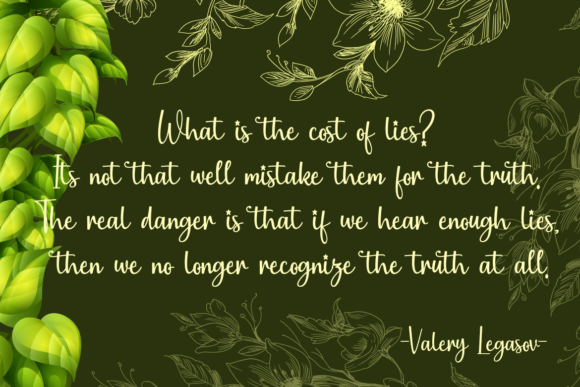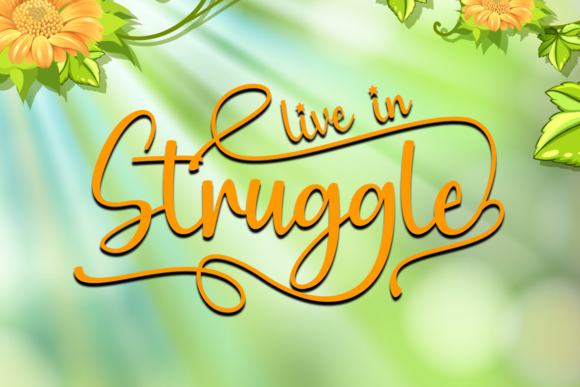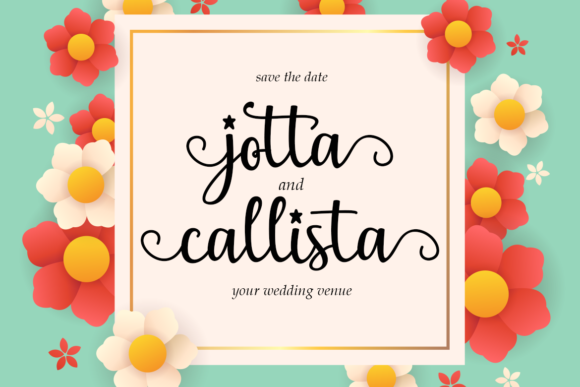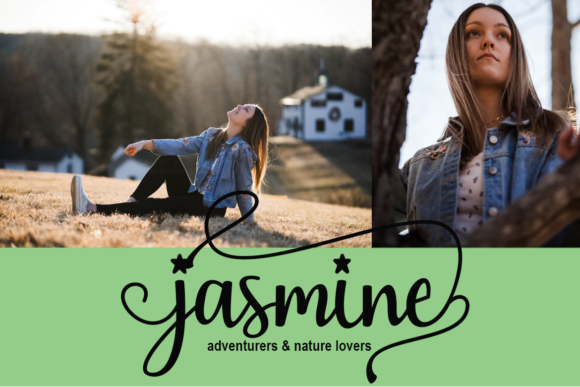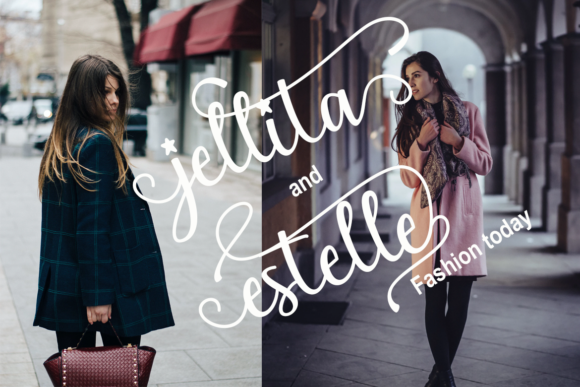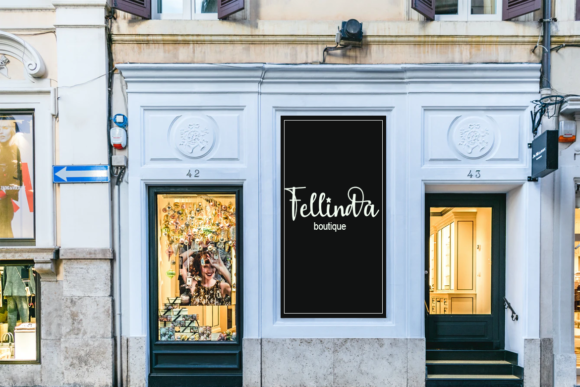
Introducing Blasting Font: The Ultimate Handwritten Font for Personalized Designs
Are you tired of using the same old fonts for your designs? Do you want to add a touch of personality and elegance to your projects? Look no further than Blasting Font, a genuine and dazzling handwritten font that’s perfect for a variety of designs requiring a personalized style.
What is Blasting Font?
Blasting Font is a beautifully crafted handwritten font that’s designed to add a touch of sophistication and elegance to your designs. With its unique and flowing script, this font is perfect for creating stunning wedding invitations, thank you cards, weddings, greeting cards, logos, and more.
Key Features of Blasting Font
- PUA Encoded: Blasting Font is PUA encoded, which means you can access all of the glyphs and swashes with ease. This makes it easy to use and customize the font to suit your design needs.
- Handwritten Style: The font features a genuine handwritten style that’s perfect for creating personalized designs. The unique and flowing script adds a touch of elegance and sophistication to any project.
- Versatile: Blasting Font is versatile and can be used for a variety of designs, including wedding invitations, thank you cards, weddings, greeting cards, logos, and more.
Uses of Blasting Font
Blasting Font is perfect for designers and crafters who want to add a touch of personality and elegance to their projects. Here are some of the many uses of this amazing font:
- Wedding Invitations: Create stunning wedding invitations that set the tone for the big day. The elegant and flowing script of Blasting Font is perfect for wedding invitations, save-the-date cards, and more.
- Thank You Cards: Add a touch of personality to your thank you cards with Blasting Font. The font is perfect for creating beautiful and heartfelt thank you cards for special occasions.
- Greeting Cards: Create stunning greeting cards for birthdays, holidays, and more with Blasting Font. The font is perfect for adding a touch of elegance and sophistication to any greeting card.
- Logos: Use Blasting Font to create beautiful and unique logos for your business or brand. The font is perfect for creating a professional and elegant logo that sets your business apart.
Benefits of Using Blasting Font
There are many benefits to using Blasting Font for your designs. Here are just a few:
- Unique and Personalized: Blasting Font adds a touch of personality and elegance to your designs, making them stand out from the crowd.
- Easy to Use: The font is PUA encoded, making it easy to access all of the glyphs and swashes.
- Versatile: Blasting Font can be used for a variety of designs, making it a great addition to any designer’s toolkit.
Tips for Using Blasting Font
Here are a few tips for using Blasting Font in your designs:
- Experiment with Different Sizes: Blasting Font looks great in a variety of sizes, so don’t be afraid to experiment with different sizes to find the one that works best for your design.
- Pair with Other Fonts: Blasting Font pairs well with other fonts, so try pairing it with a sans-serif font for a unique and interesting look.
- Use for Headlines and Titles: Blasting Font is perfect for headlines and titles, so try using it to add a touch of elegance and sophistication to your design.
Blasting Font is a genuine and dazzling handwritten font that’s perfect for designers and crafters who want to add a touch of personality and elegance to their projects. With its unique and flowing script, PUA encoding, and versatility, this font is a great addition to any designer’s toolkit. Whether you’re creating wedding invitations, thank you cards, greeting cards, logos, or more, Blasting Font is the perfect choice.